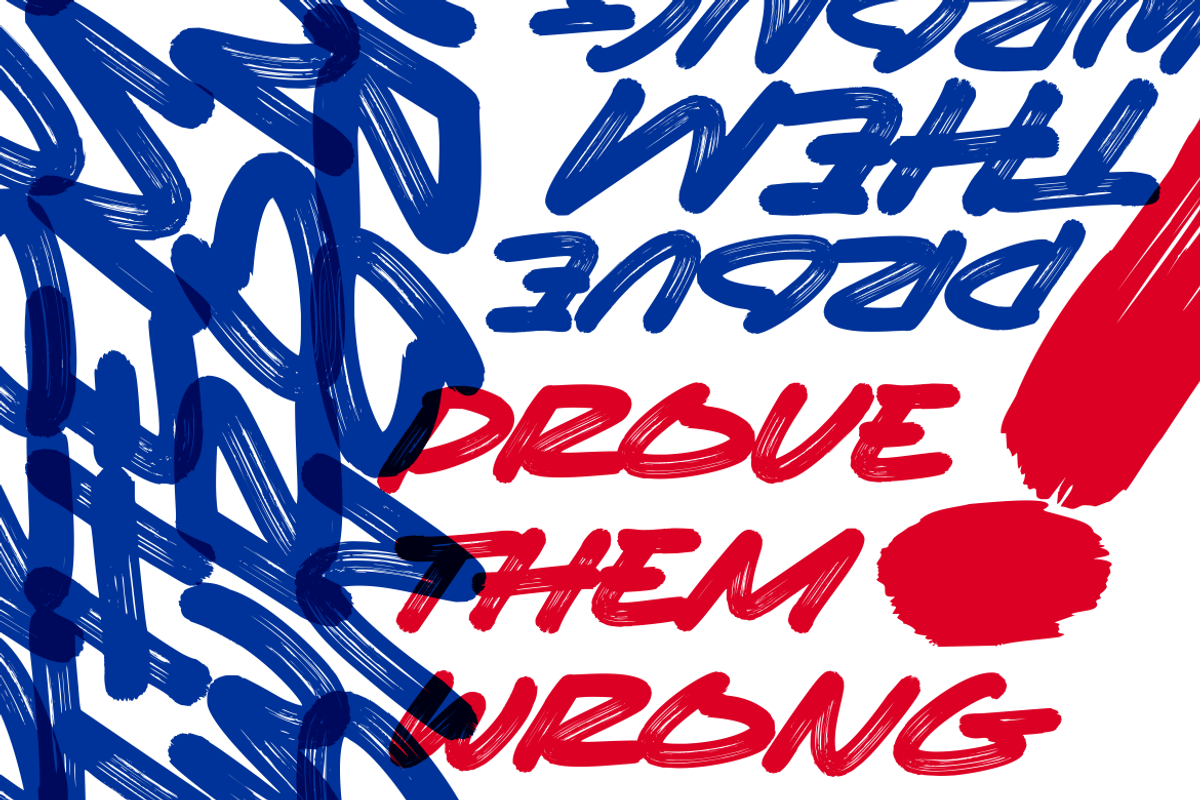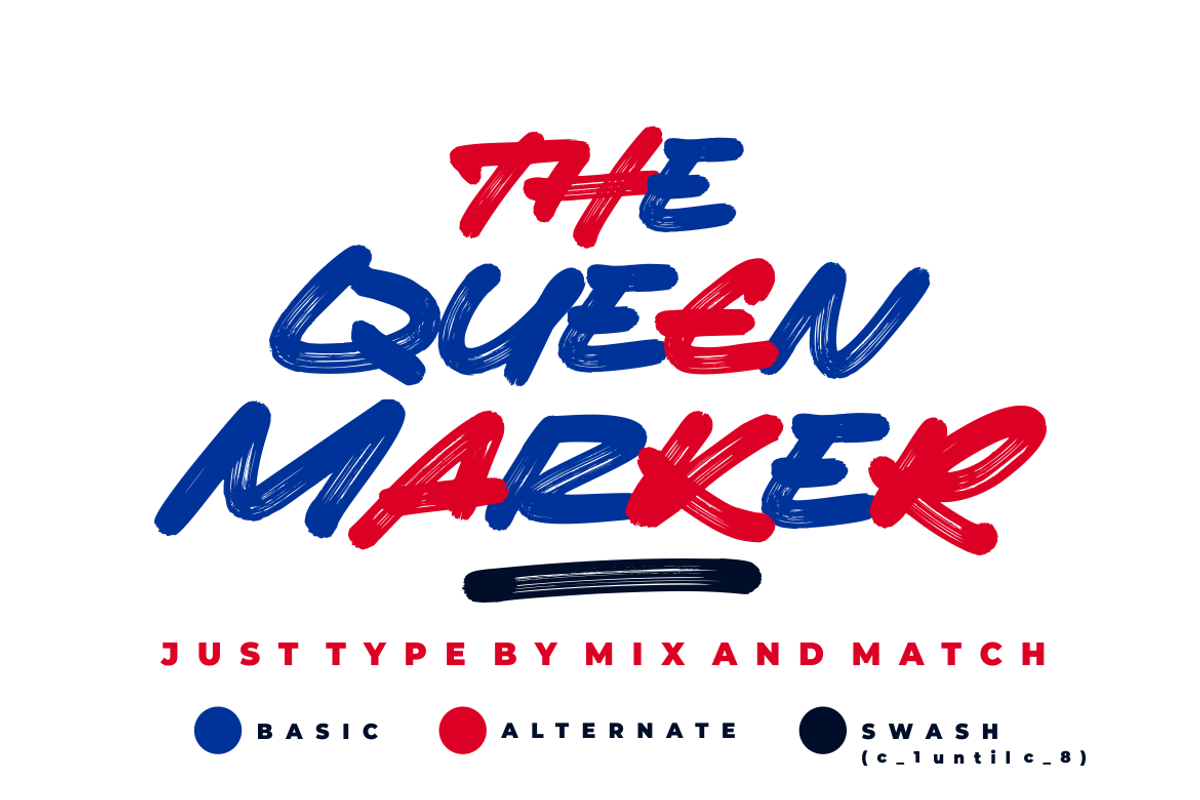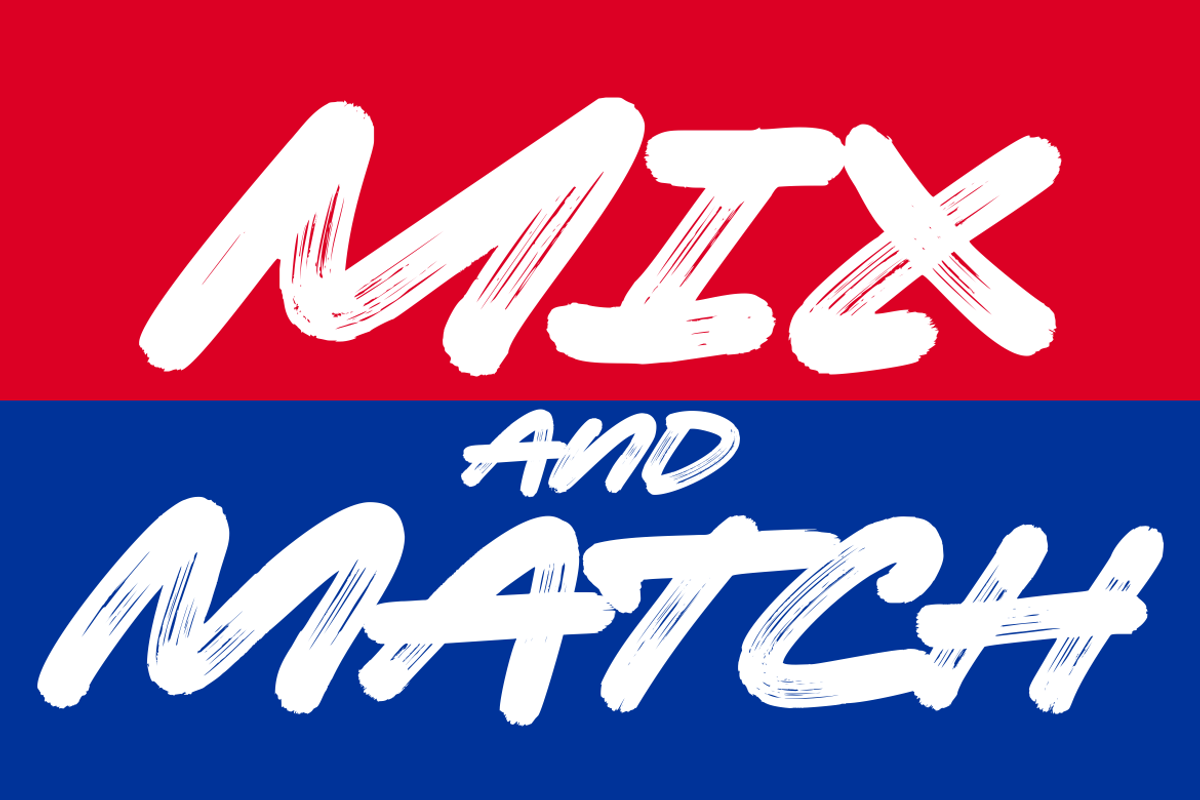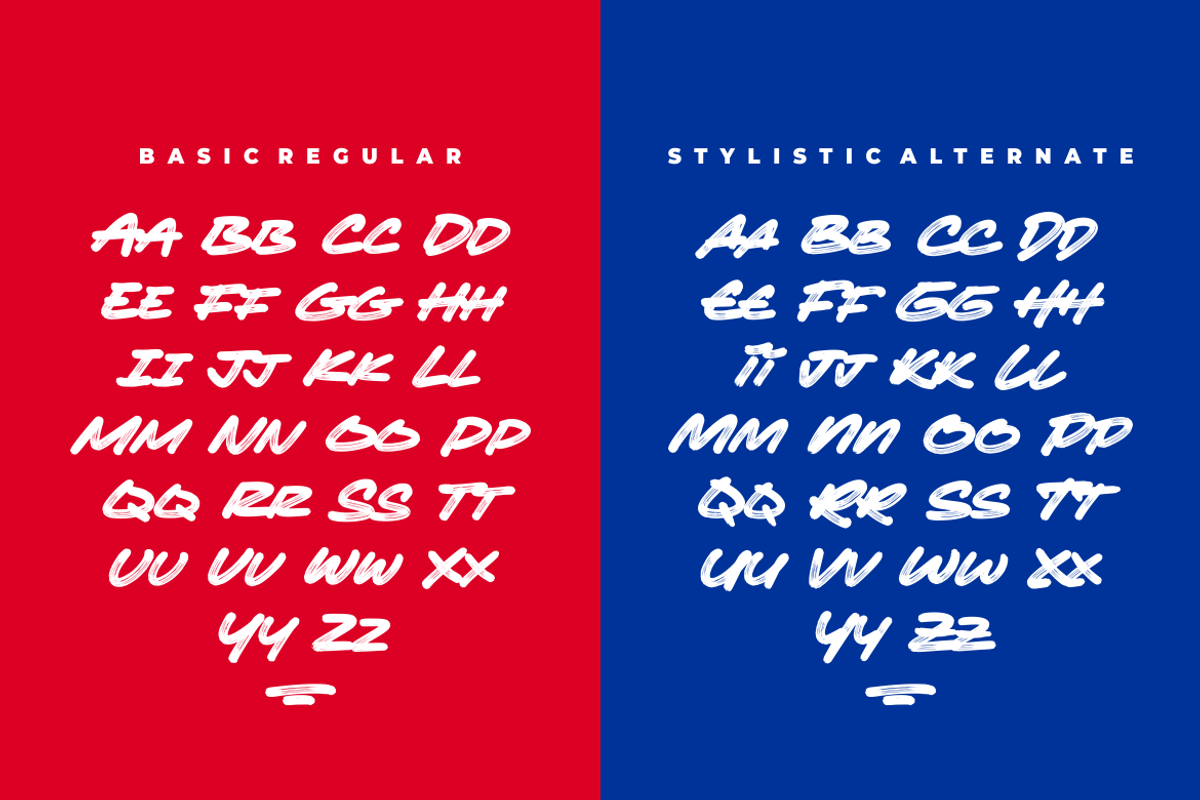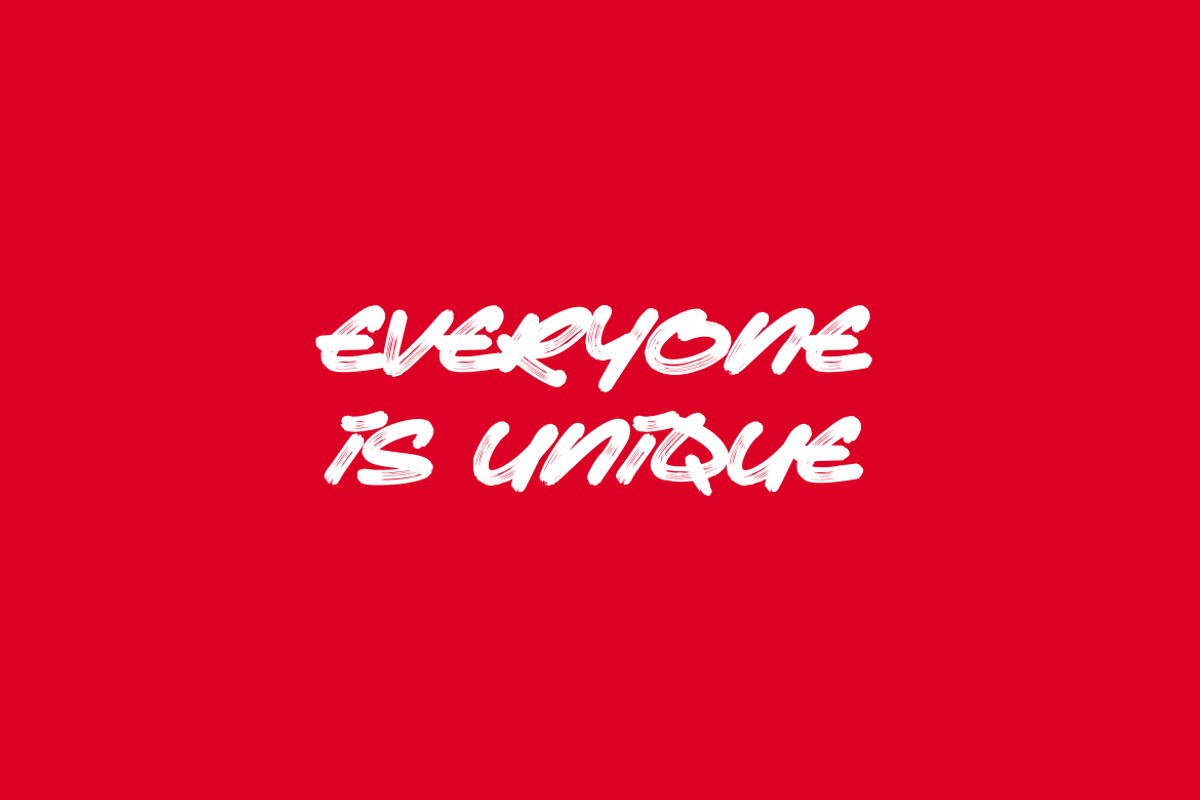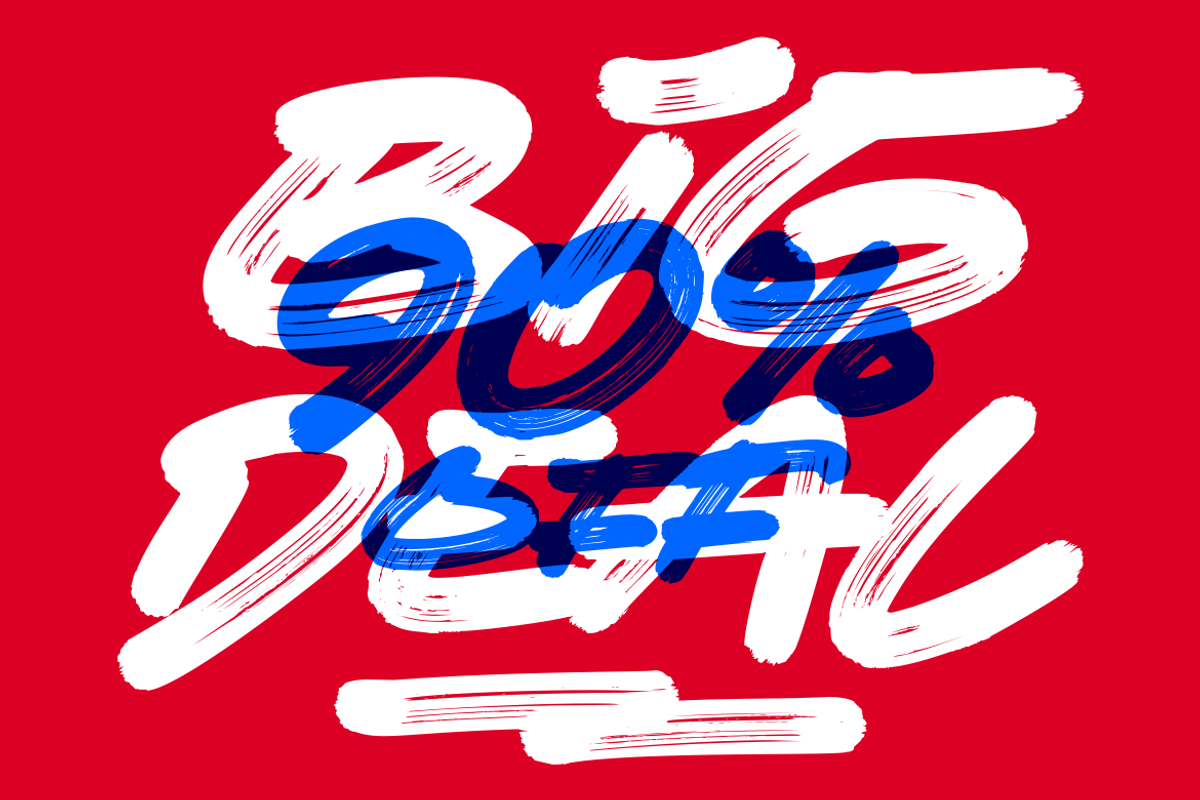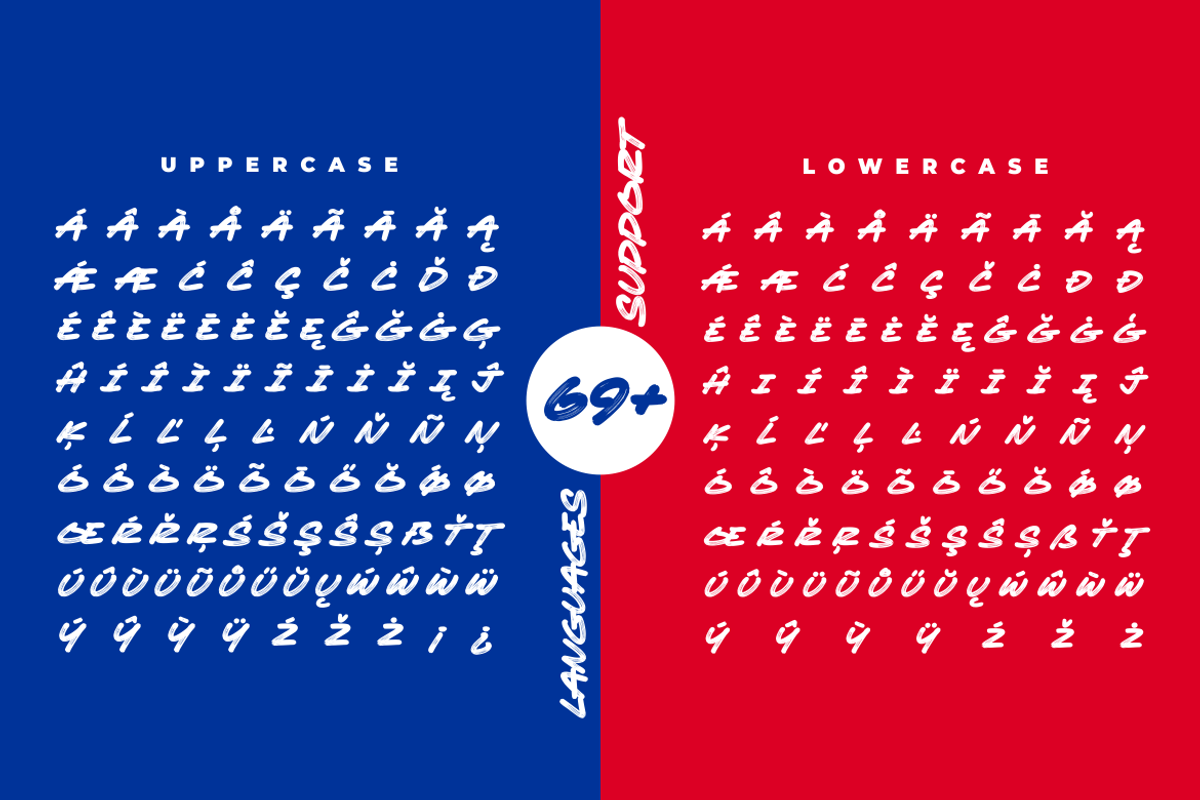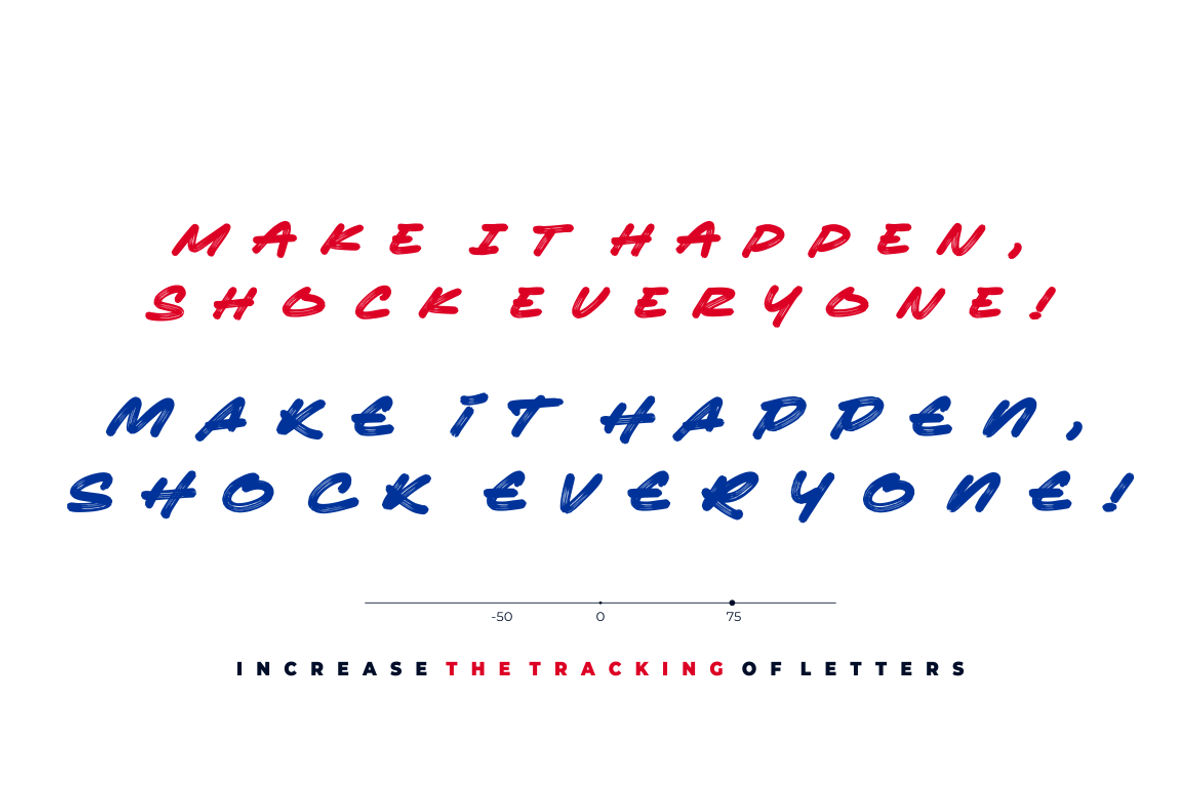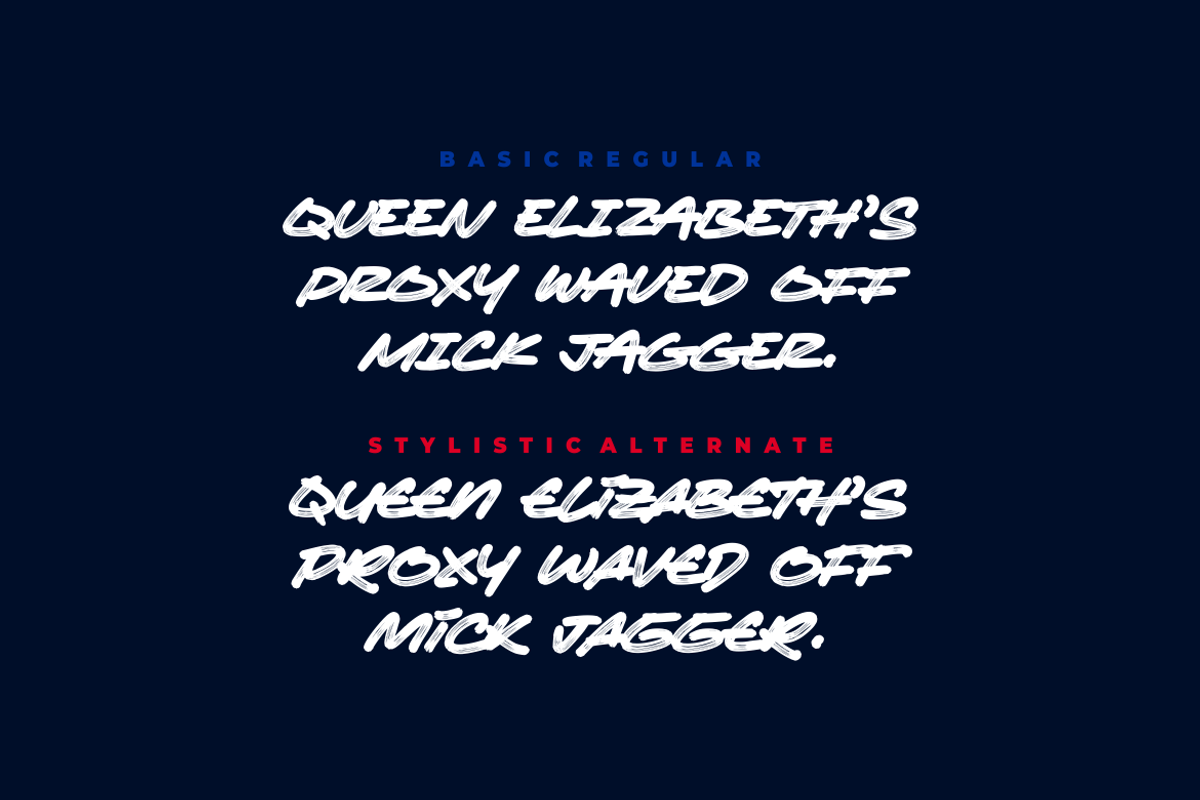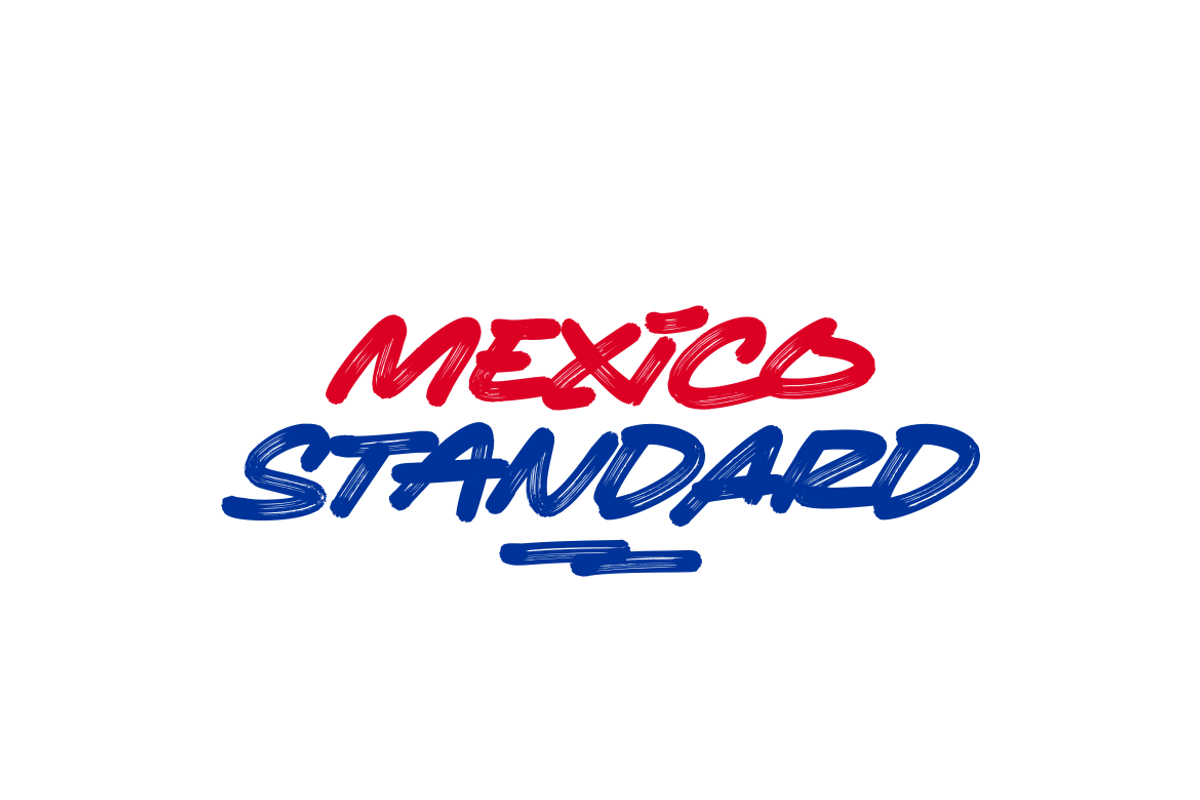
The Queen Marker • A Marker Font
UPDATED 04/10/2023 - Solid Version (Untextured): Regular and Alternate
Presenting The Queen Marker! A Brush Marker Font with a stylistic alternate. This font is made with the perfect combination of each character. You can type by Mix & Match to get a unique combining. It looks original and can be used for all your project needs. Each glyph has its own uniqueness and when meeting with others will provide dynamic and pleasing proximity. This font can be used at any time and on any project. You can see in the presentation picture above, The Queen Marker looks stunning on design projects.
So, The Queen Marker can't wait to give its touch to all your design projects such as quotes, poster design, personal branding, promotional materials, logotype, product packaging, etc.
Besides that, The Queen Marker also has some underline swashes. Just type c_1 until c_10 to feature all.
1. The Queen Marker Basic • The first version comes with uppercase, lowercase, ligatures, numeral, punctuation, symbols, and Huge Latin Multilingual Support.
2. The Queen Marker Alternate • The second version comes with uppercase, lowercase, and also Huge Multilanguage Support.